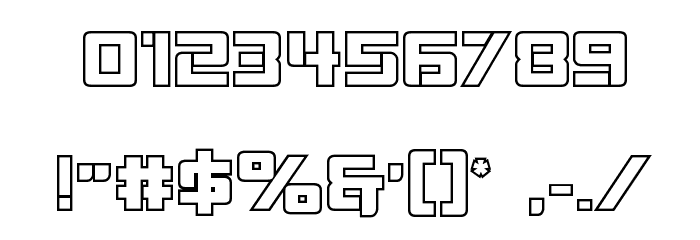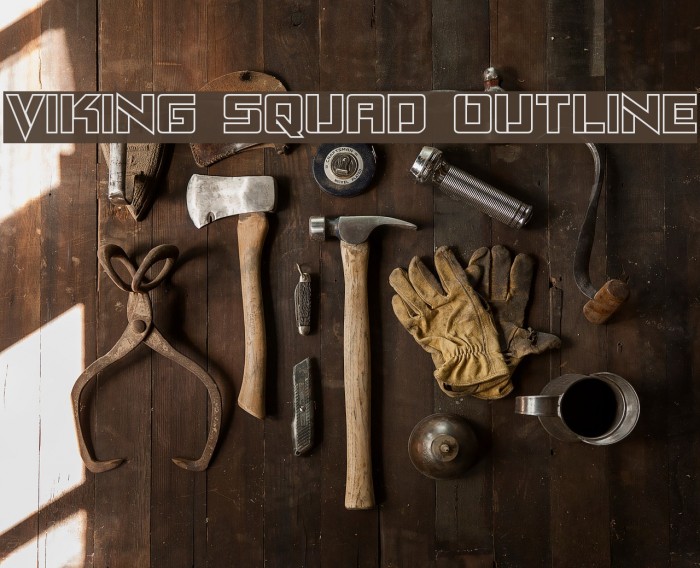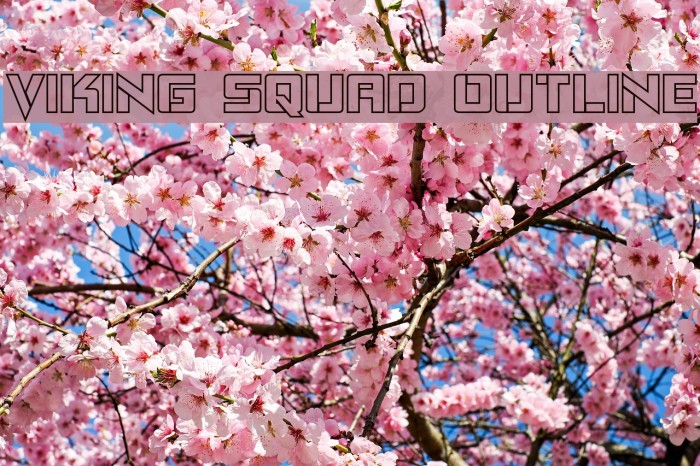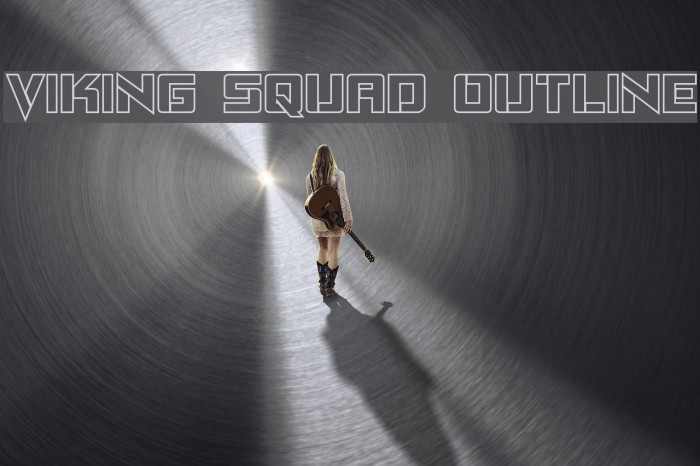
Viking Squad Outline Font
This font features a bold, geometric outline style with a modern and futuristic aesthetic. The characters are constructed with sharp angles and straight lines, giving them a structured and edgy appearance. The uppercase letters are particularly striking, with a uniform height and width that creates a cohesive look across the alphabet. The numbers and special characters maintain the same bold outline, ensuring consistency throughout. This font is ideal for projects that require a strong visual impact and a contemporary feel.
A bold, geometric outline font with a modern and futuristic style.
• Font: Viking Squad Outline
• Proposed Projects: Ideal for branding, logos, posters, and headlines that require a strong visual impact.
• Category: Decorative/Display
• Bold: Yes
• Italic: No
• Weight: Bold
• Width: Normal
• Character Spacing: Normal
• Contrast: Low
• Overall Style: Modern
• Use Case: Headlines, Logos